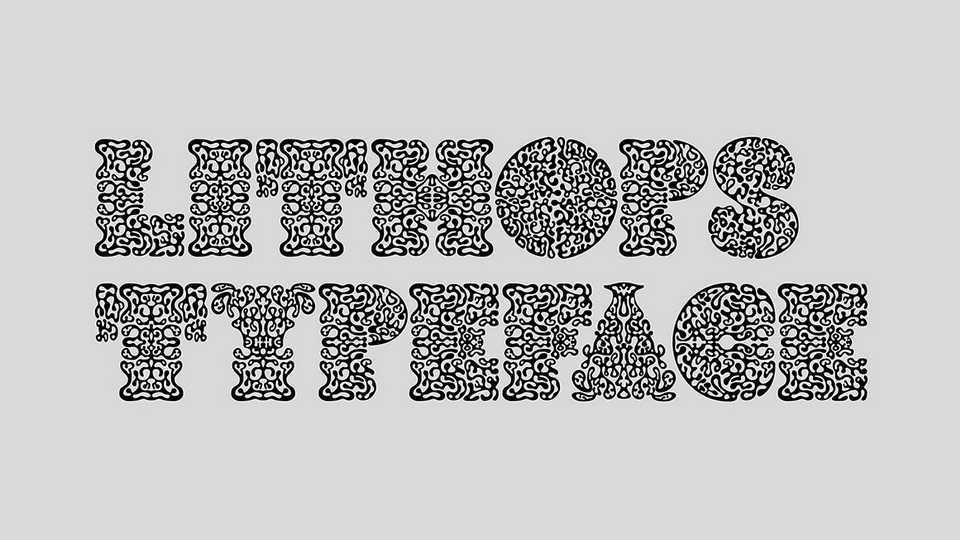
Download Lithops font, a very display, very unique, very complex semi modular font. Lithops name stems from succulent plants to which it bears a resemblance, and was (loosely) inspired by Art Nouveau, Alzheimer brains and Matisse cutouts.
Designer: Daytona Mess